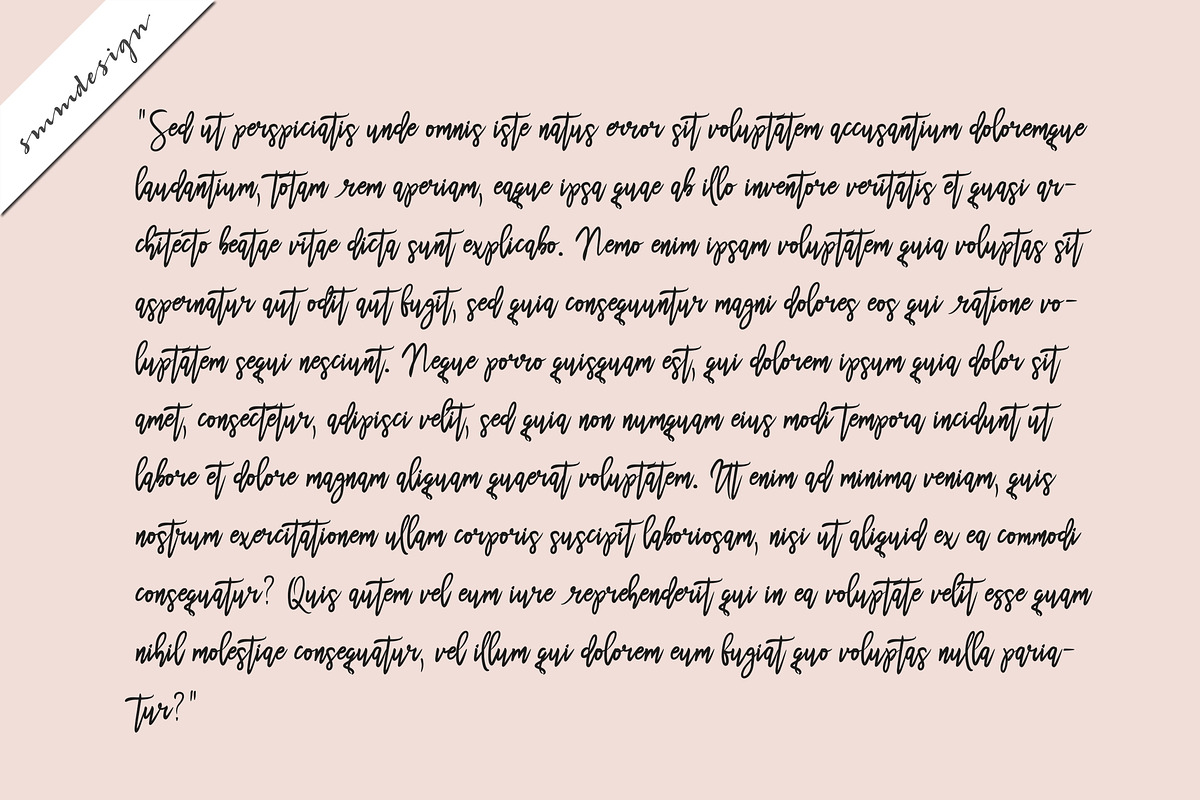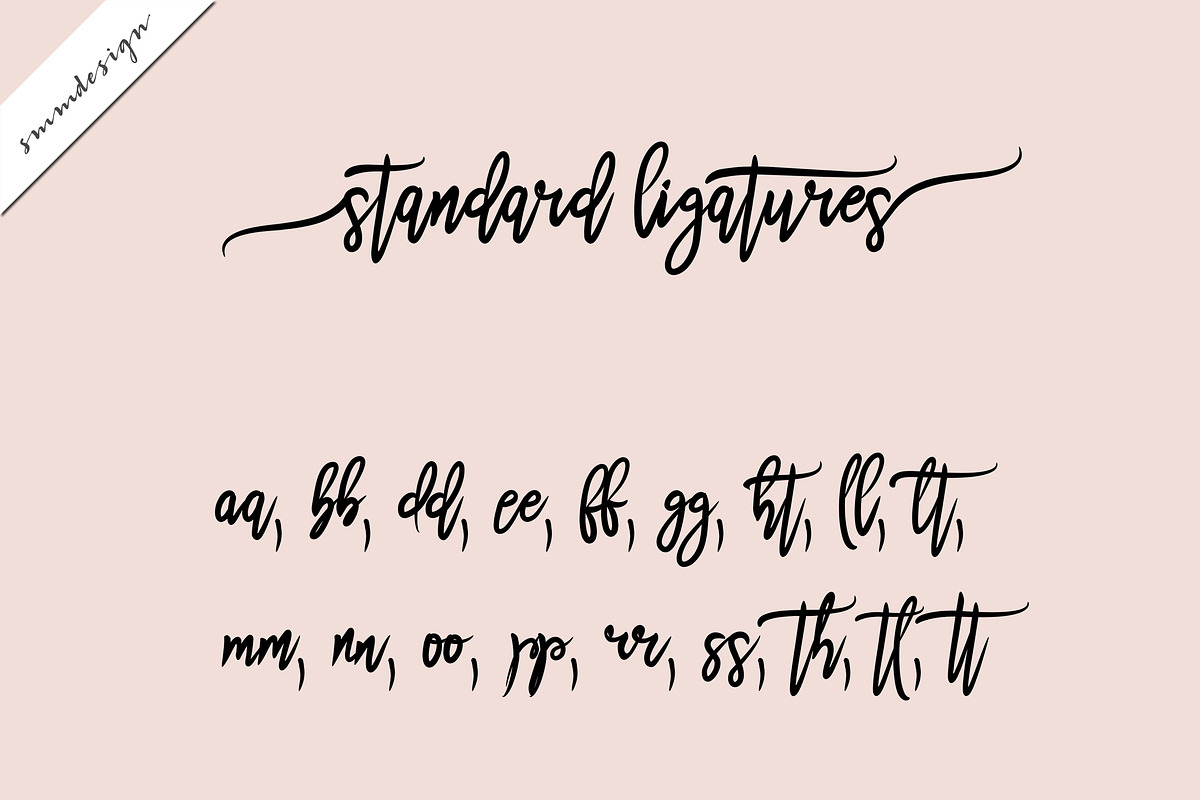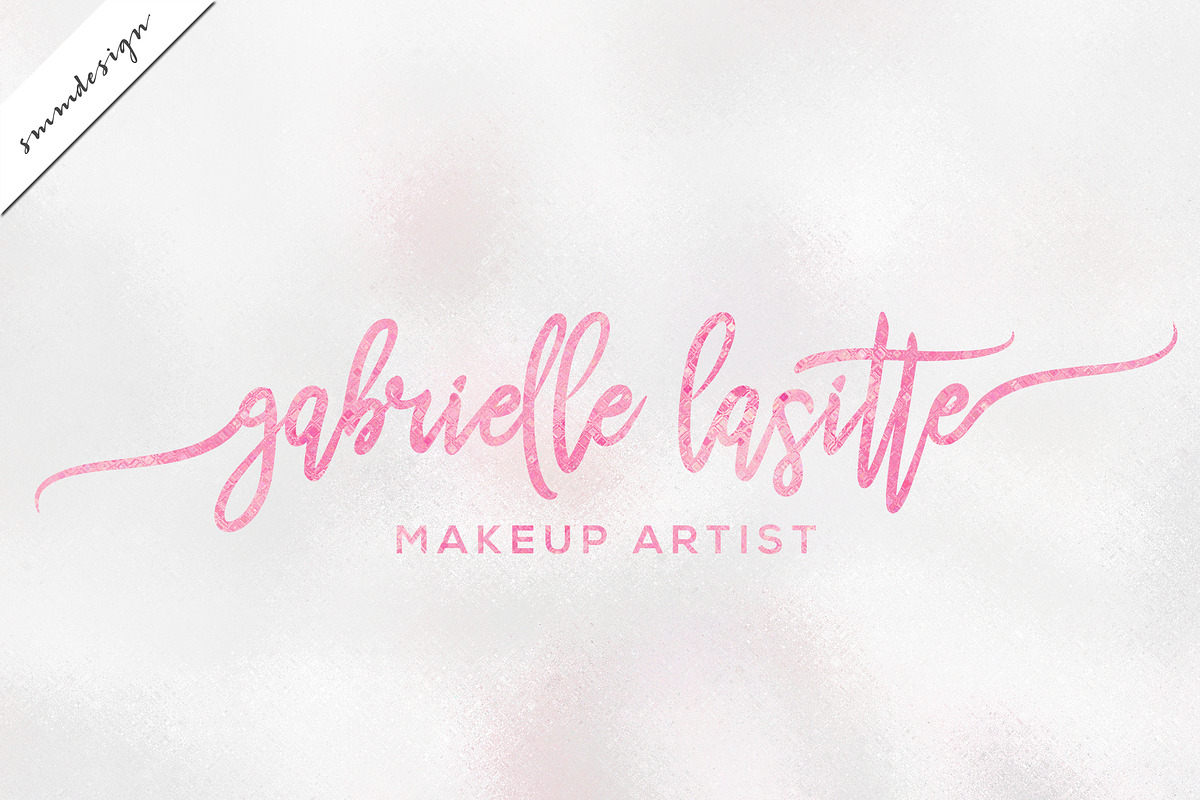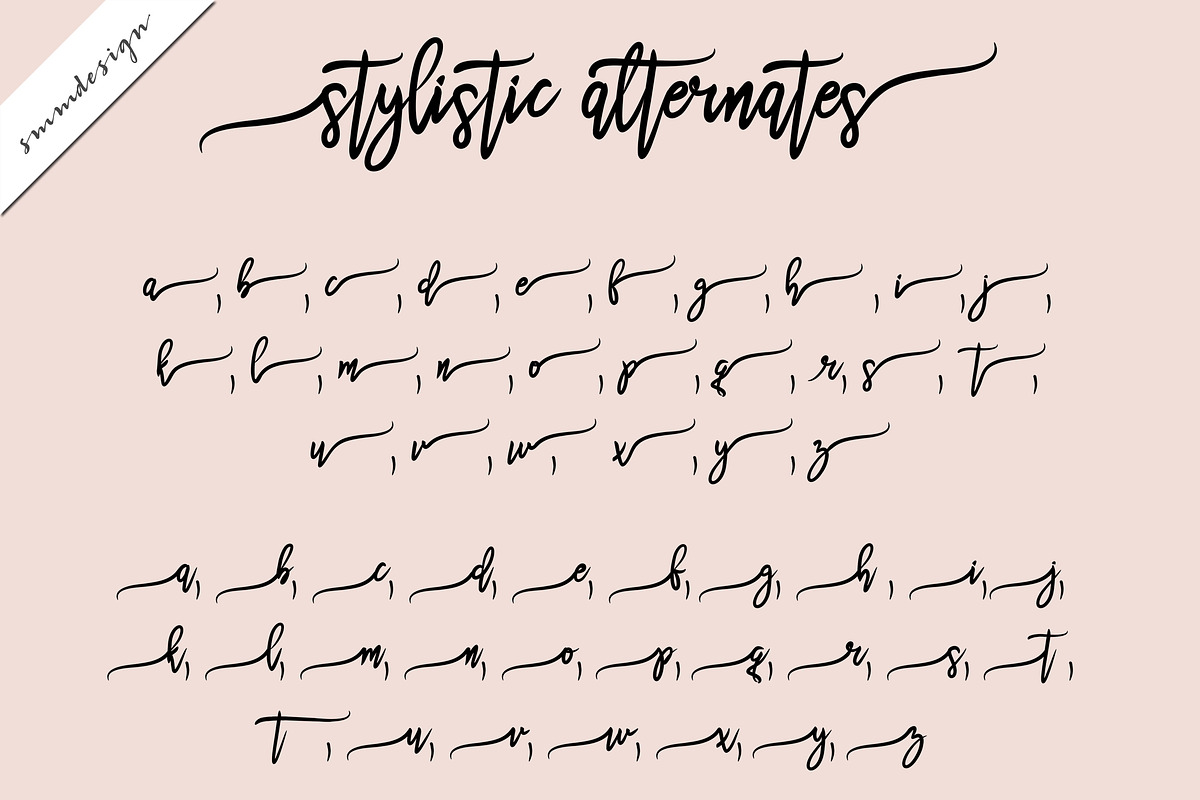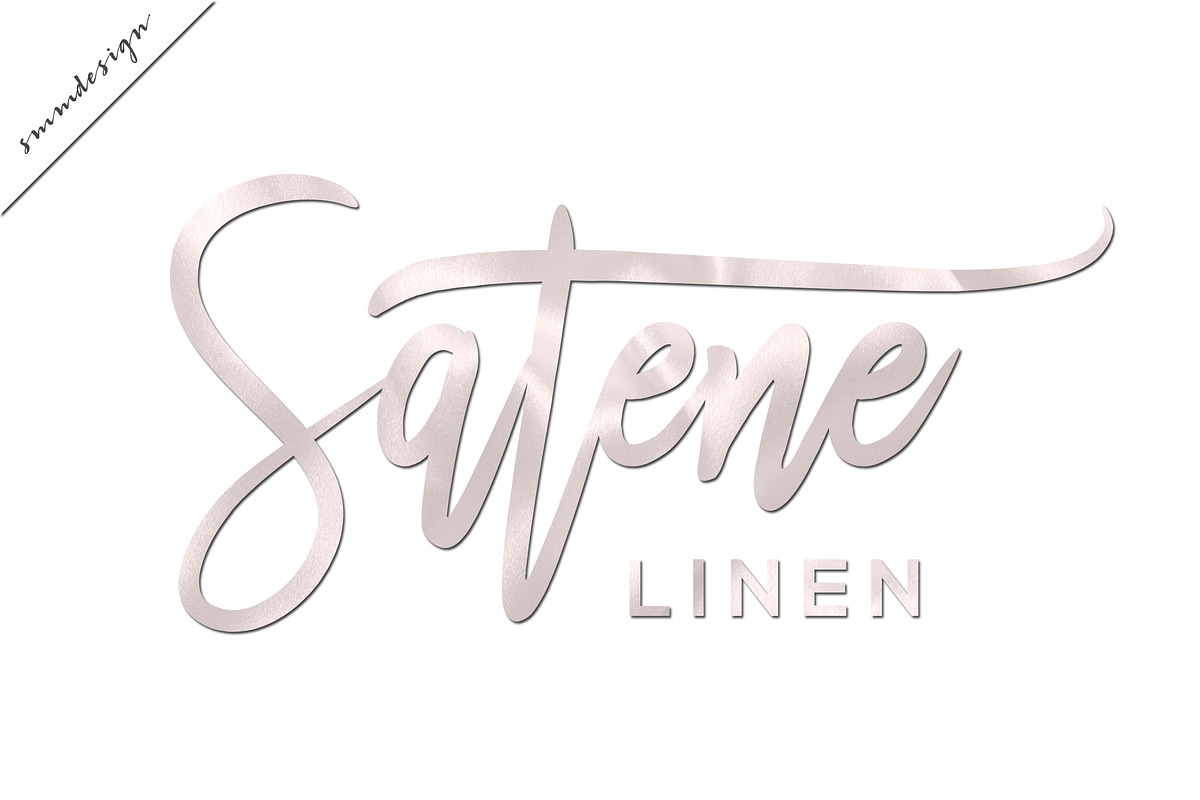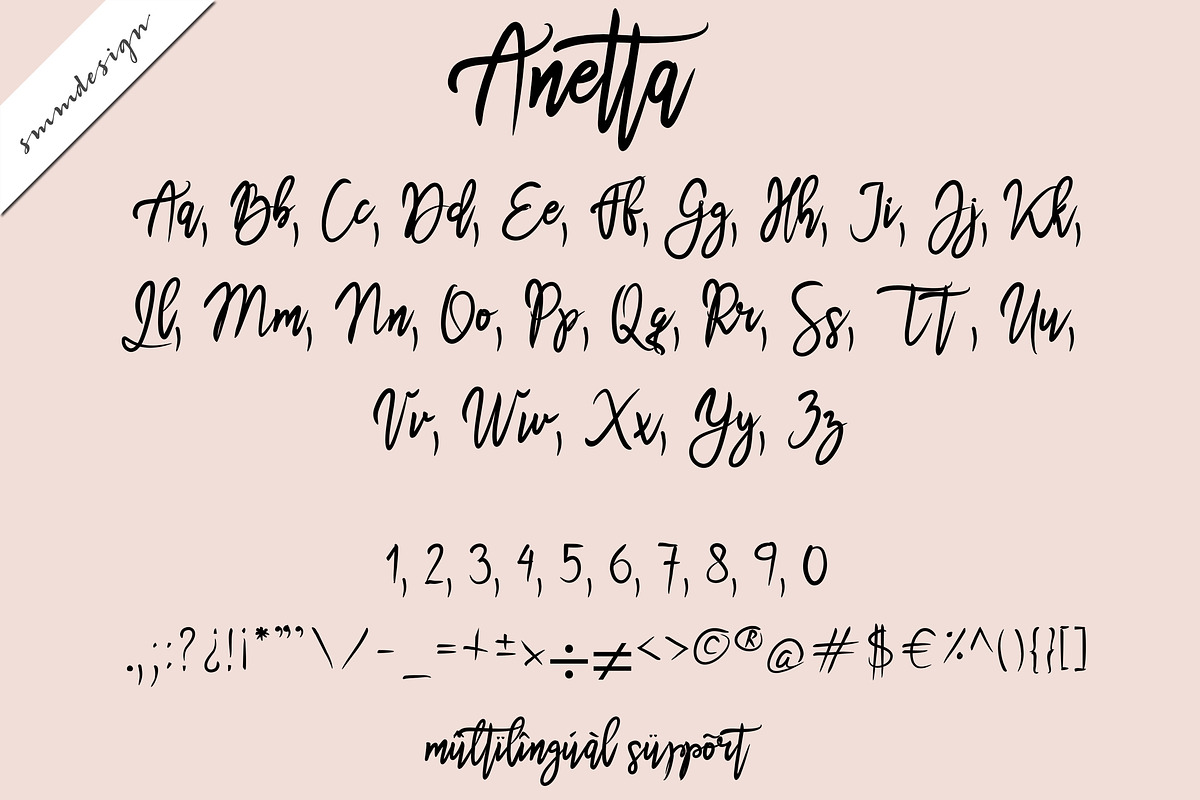
Anetta Handwritten Script Font
Hi, and thanks for stopping by! I'm introducing the new hand lettered font, Anetta Font with a real handwritten feel. Ideal for branding material, logos, modern wedding invitations...
Why Anetta Handwritten Script Font is worth a look
Anetta Handwritten Script Font by savanamm design fits naturally into Branding, posters, packaging, typography.